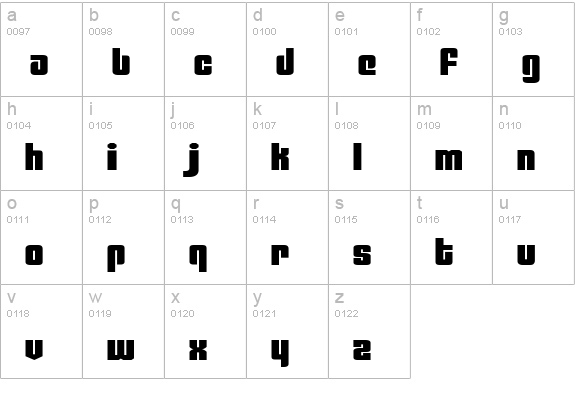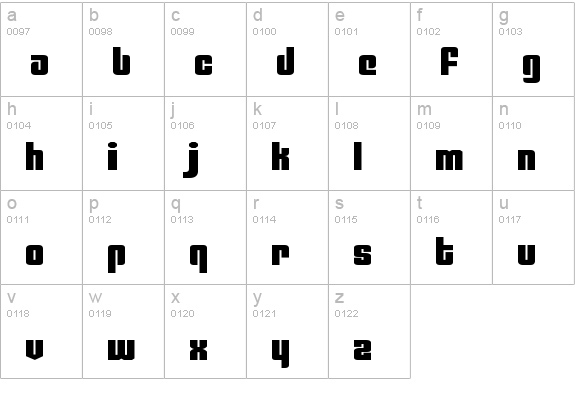
Philadelphia Expanded Font Details
Philadelphia Expanded is a distinctive, extended-width variant in the Philadelphia typeface family \xE2\x80\x94 well suited to design and typography projects.
Philadelphia Expanded is a stunning and versatile font that will elevate any design project to new heights of sophistication and professionalism. With its clean lines, elegant curves, and bold presence, this font is perfect for both digital and print applications. Philadelphia Expanded offers a wide range of weights and styles, allowing you to create a variety of looks and moods. Whether you need a bold headline for a magazine layout, a sleek logo for a corporate brand, or a stylish invitation for a special event, this font has got you covered. One of the best things about Philadelphia Expanded is that it is freely available to download at FontsMarket.com. This means that you can access this amazing font without having to spend a dime. Whether you are a professional designer or a hobbyist, this font is a must-have in your collection. Not only does Philadelphia Expanded offer exceptional design possibilities, but it also ensures legibility and readability, even at smaller sizes. Its carefully crafted letterforms guarantee that your message will be communicated clearly and effectively to your audience. So why wait? Enhance your designs with the timeless elegance of Philadelphia Expanded. Download this font for free at FontsMarket.com and take your creative projects to a whole new level.